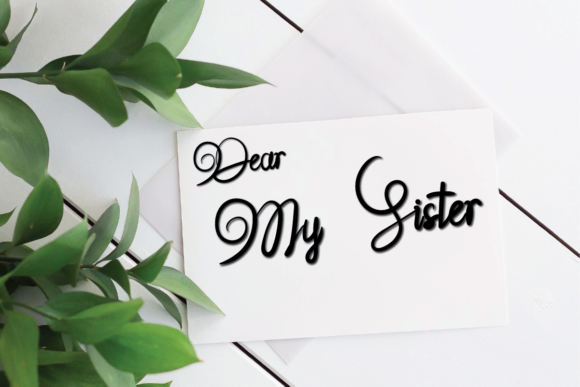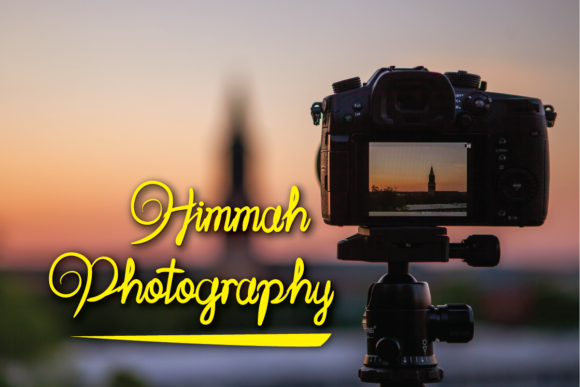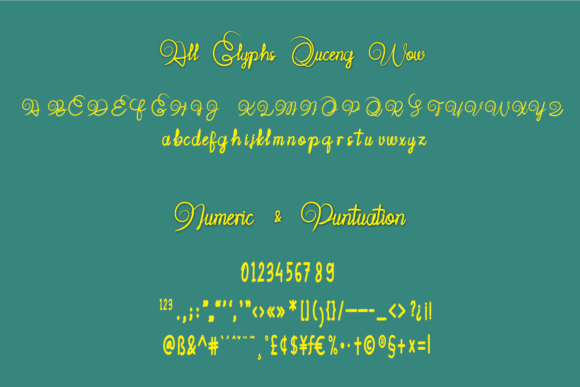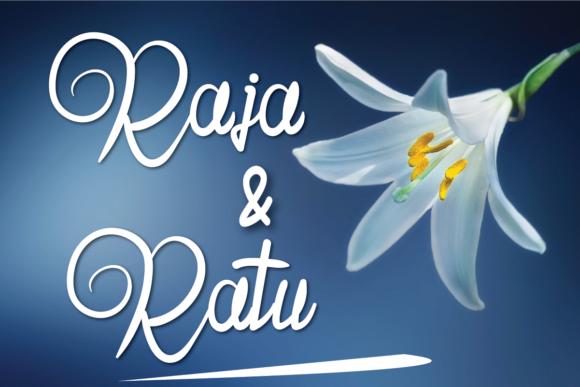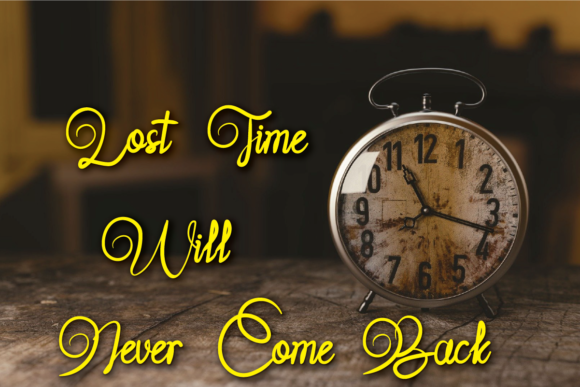
Quceng Wow Font
About Quceng Wow Font
Quceng Wow is a handwritten script font, with an elegant and beautiful look. It looks stunning on invitations, thank you cards, quotes, greeting cards, logos, business cards and every other design which needs a handwritten touch.